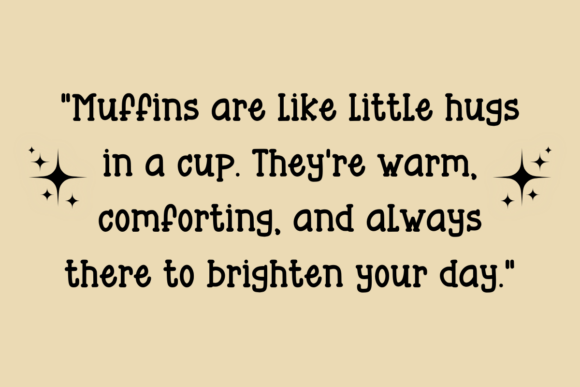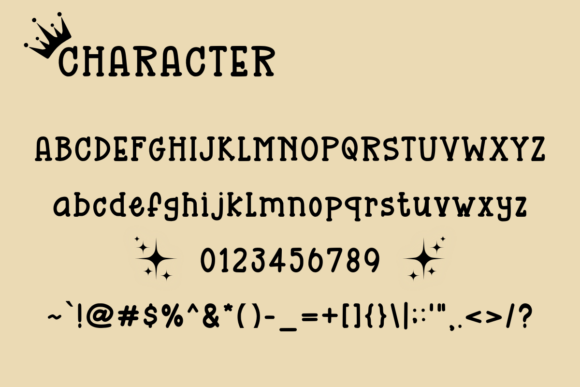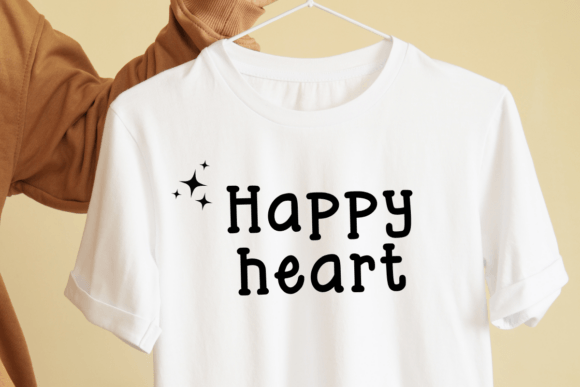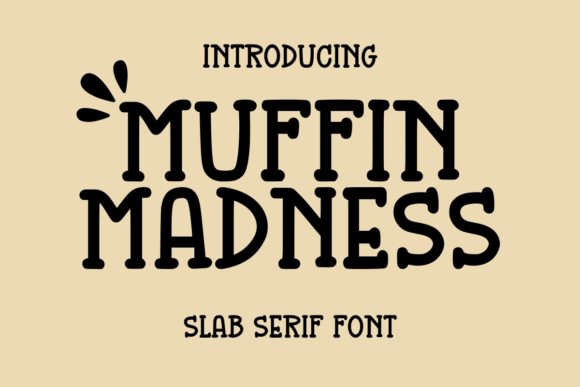
Introduction to Muffin Madness Font
This is a playful slab serif font, perfect for various uses like memos, journals, notes, planners, KDP interiors, greeting cards, invitations, scrapbooks, diaries, and printables.
It works great for low-content projects such as daily planners, notepads, calendars, to-do lists, worksheets, workbooks, and templates for monthly or weekly planners, journal pages, and notebook sheets .
Muffin Madness Font offers exceptional quality and versatility, making it a valuable addition to your design toolkit. Whether you’re creating for personal projects or commercial use, Muffin Madness Font delivers professional results.